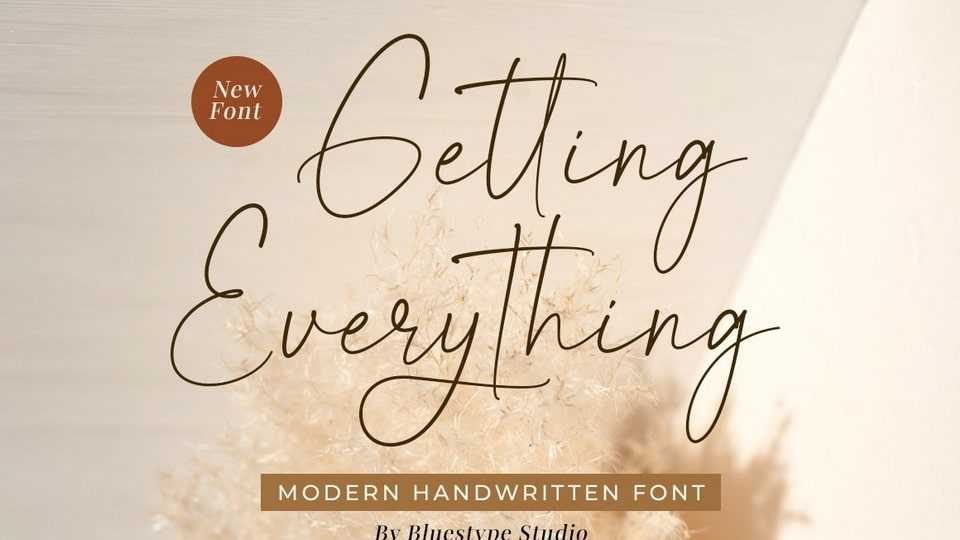
Download Getting Everything font, a stunning handwriting typeface with a natural twist. Use it for your most creative projects and watch how it makes them come alive.